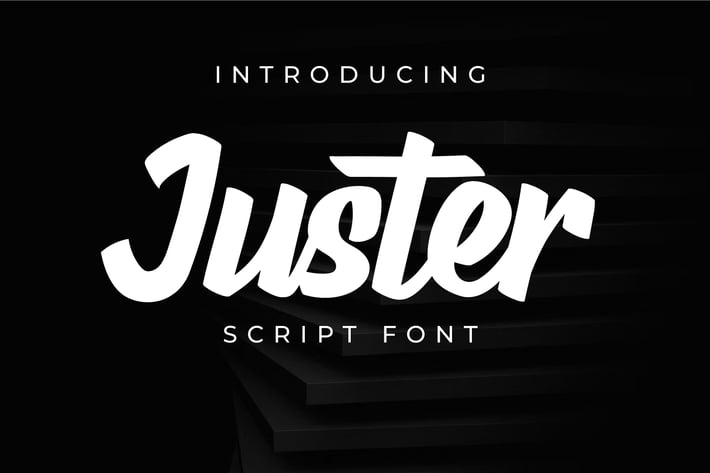
Juster Modern Script Font
Introducing Juster
An exquisite script font that elegantly combines sophistication with a touch of modern flair. With its graceful curves and flowing strokes, Juster brings a personal and artistic touch to your designs, making it ideal for everything from wedding invitations and branding to social media graphics and personalized stationery.
Embrace the charm of Juster and make your projects unforgettable!